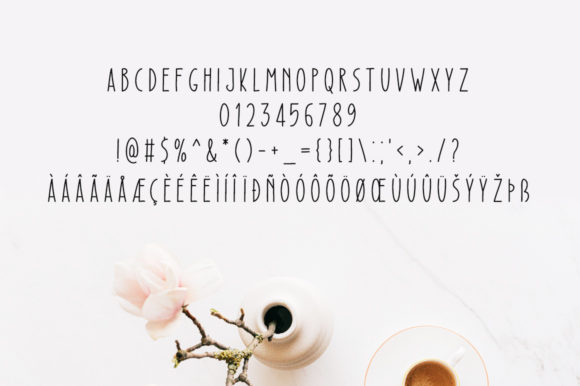
Pretty Magnolia Font
Pretty Magnolia is a minimal and thin sans serif font. It can easily be matched to an incredibly large set of projects, so add it to your creative ideas and notice how it makes them stand out!